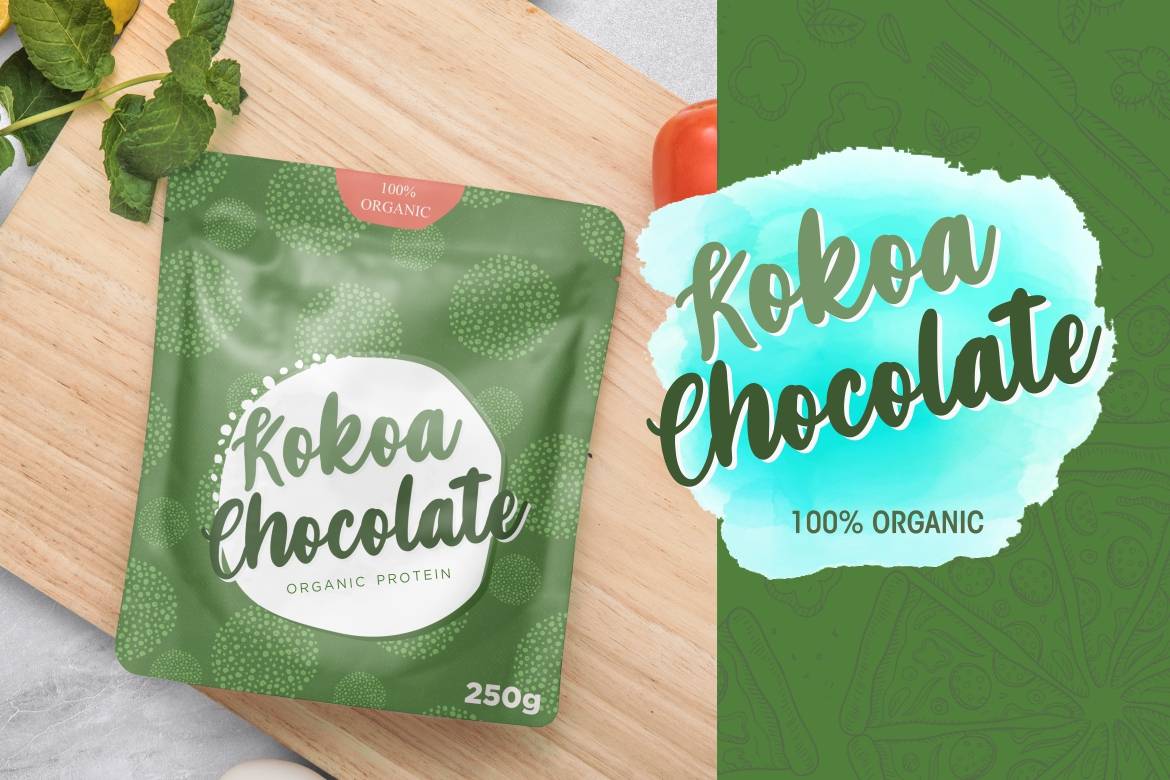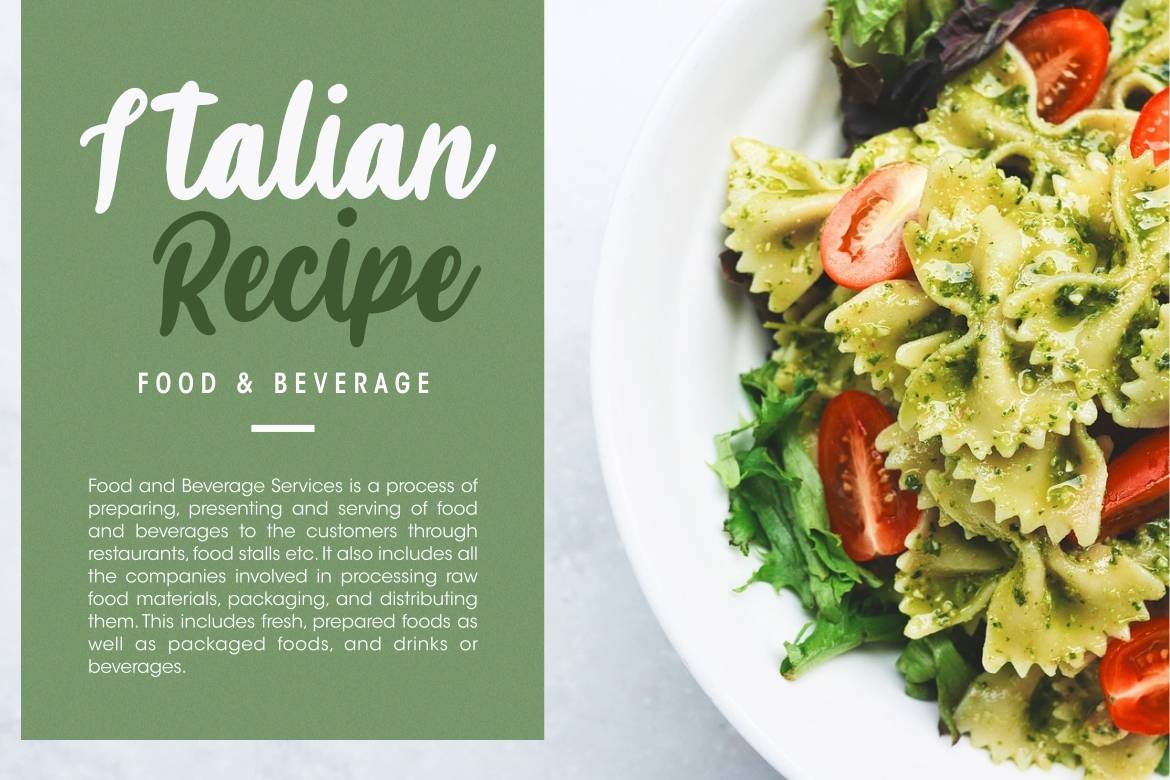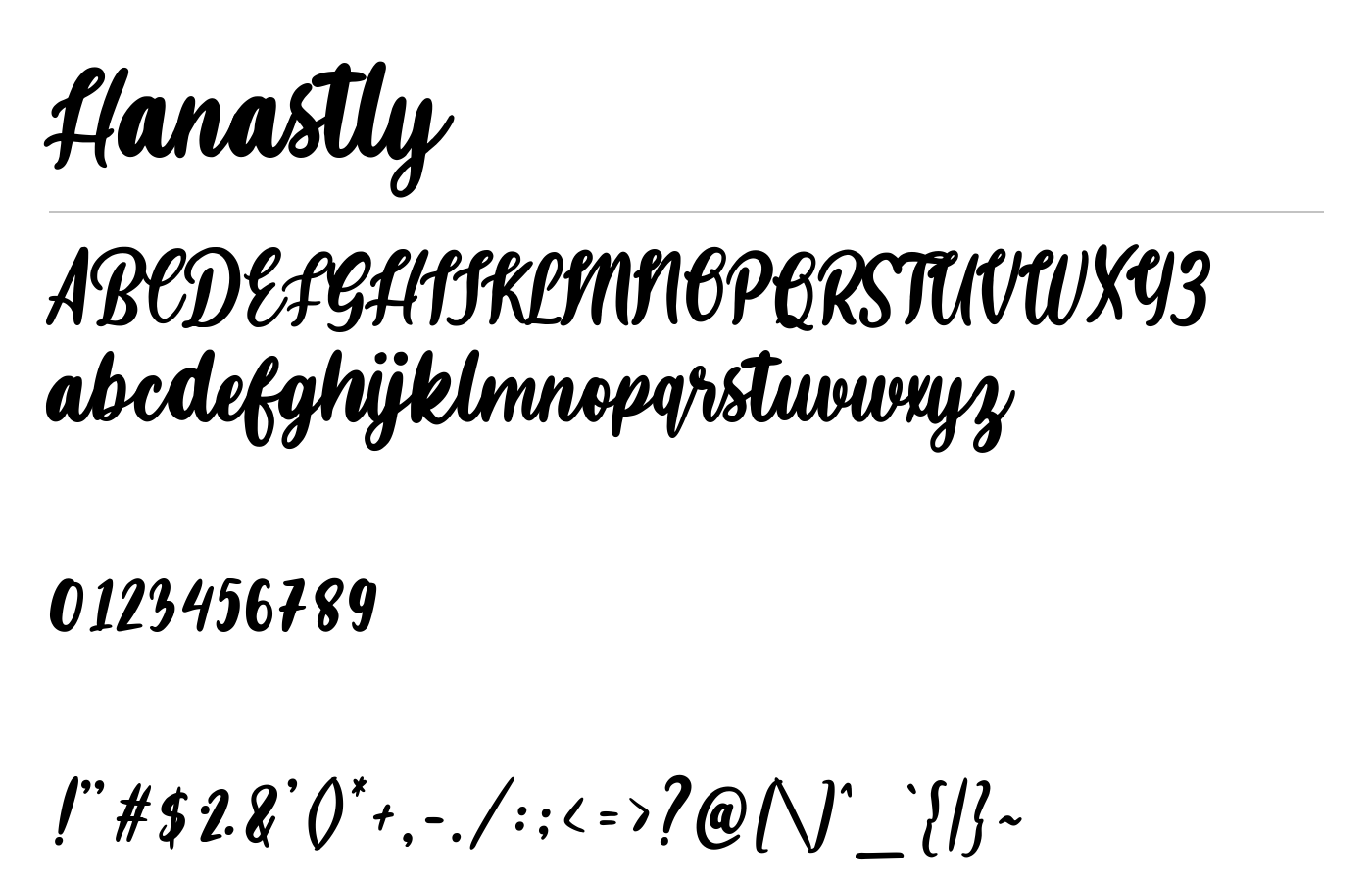
Hanastly Bold is a lively and bold script font that combines a smooth, brush-like texture with strong, confident strokes. Its thick weight and upright style give it an energetic yet approachable personality, making it perfect for branding, logos, and headlines that want to convey friendliness and creativity. This font works well in modern, playful contexts where a hand-crafted, stylish look is desired.
Hanastly Bold Font
About Hanastly Bold Font
| Font family | Hanastly Bold Font |